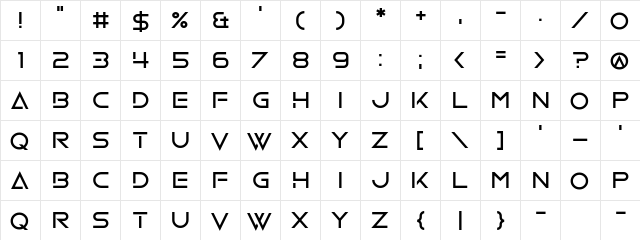
Mandatory Plaything Regular
| Designer | Allison James |
Design Context for Mandatory Plaything Typeface
Mandatory Plaything is a composed and adaptable typeface that performs quietly and consistently across a wide range of design contexts. Its slender proportions lend an understated elegance to any composition.
Pro Tip: Use Mandatory Plaything in both headline and body roles to test its range before committing to a single application.